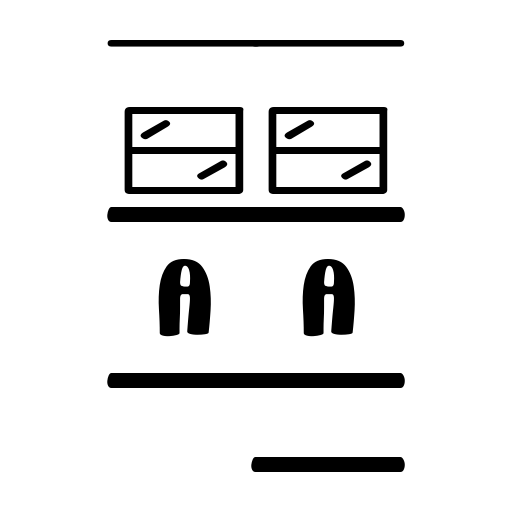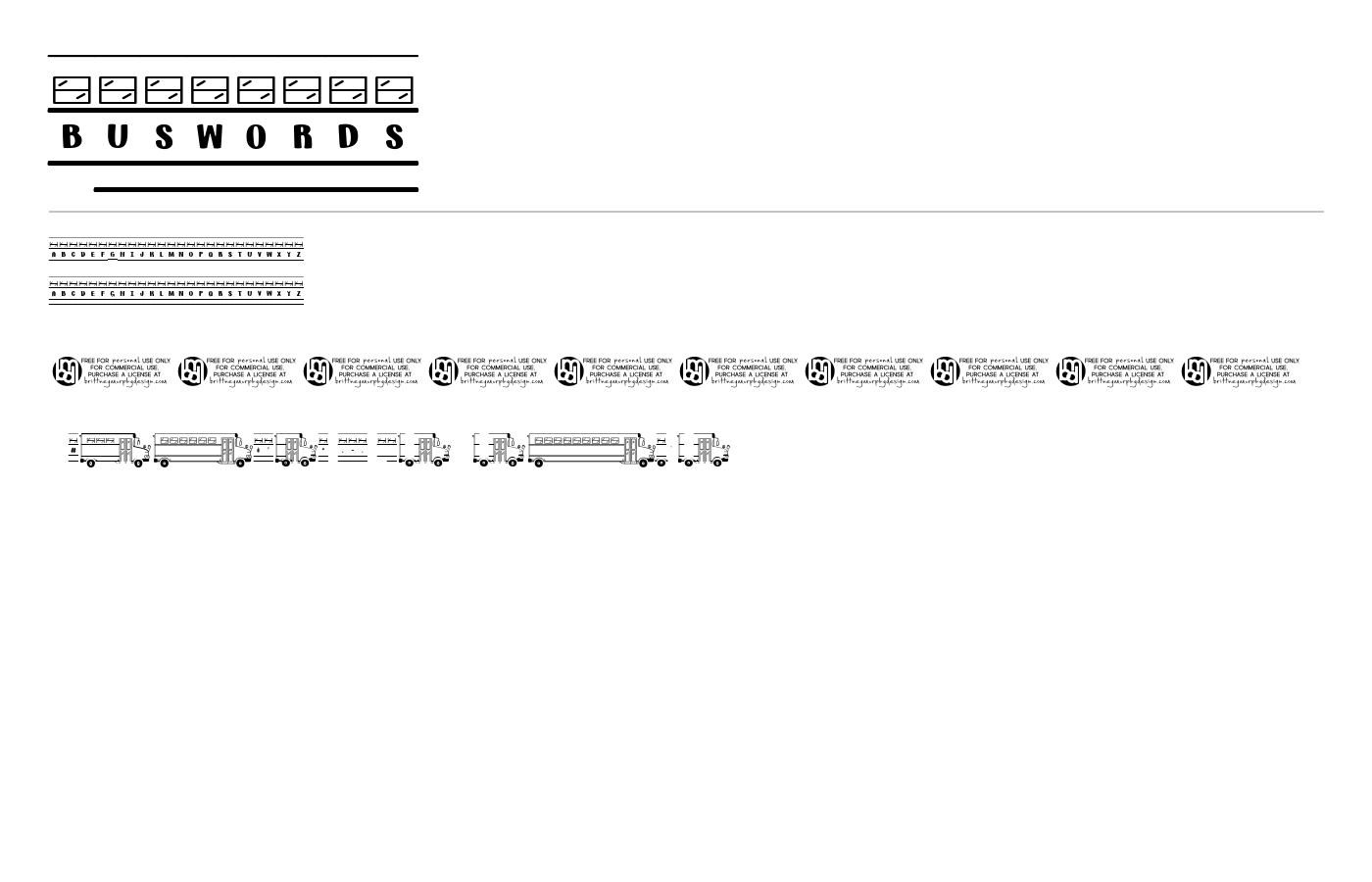
Buswords Font is a playful and bold display typeface featuring thick, solid letterforms with rounded edges and a friendly, approachable vibe. Its unique design, inspired by classic bus signage elements, makes it perfect for creating eye-catching headlines, logos, and fun branding projects that need a lively, urban touch. This font works well in creative contexts where a cheerful and memorable style is desired.
Buswords Font
About Buswords Font
| Font family | Buswords Font |
| Designer | Brittney Murphy |